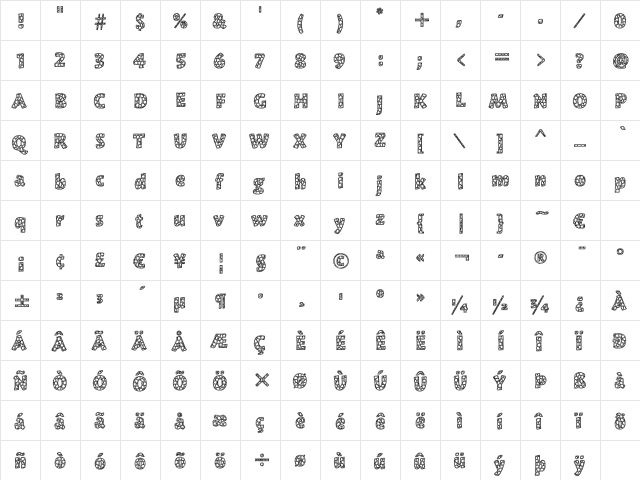
WoodsWorld 'StainedGlass' Regular
Design Context for WoodsWorld 'StainedGlass' Typeface
WoodsWorld 'StainedGlass' taps into classic Western woodtype traditions — bold, characterful, and impossible to ignore.
A natural fit for craft spirits, ranch branding, rodeo events, and Americana-inspired design work.
Font Pairing: Combine WoodsWorld 'StainedGlass' with a simple slab or neutral sans — period-accurate companions reinforce the vintage feel without competing for attention.
Pro Tip: Use WoodsWorld 'StainedGlass' for short, impactful bursts of text — it shines in poster headlines and product names rather than extended copy.